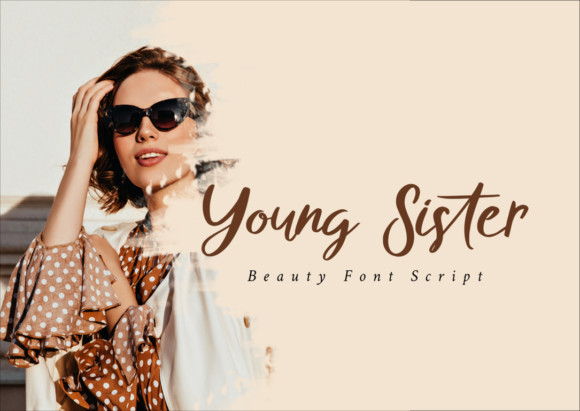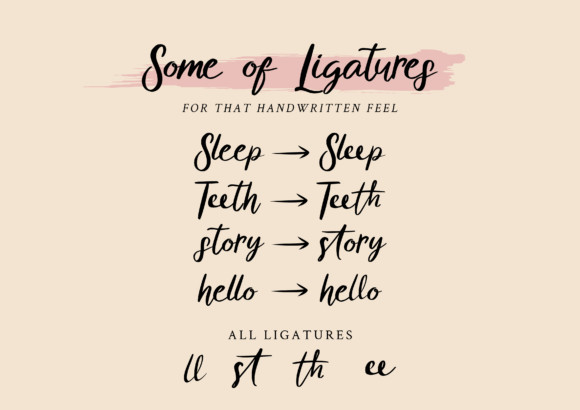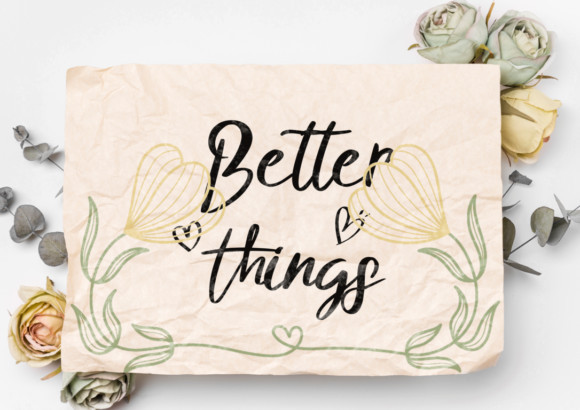
Young Sister Font
Young Sister is a lovely script font featuring charming, playful characters that seem to dance along the baseline. Add this font to your most creative ideas, and notice how it makes them stand out!